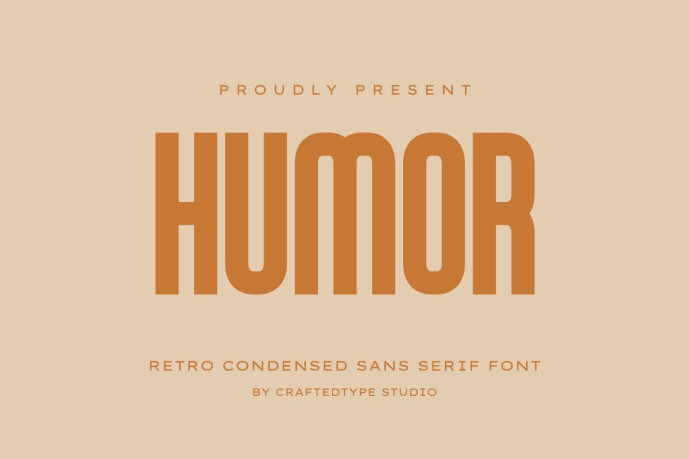
Designer: CraftedType Studio
Humor is a sleek and stylish retro condensed sans serif font designed for creators who value clean aesthetics and strong visual impact. With its tall, narrow letterforms and elegant spacing, this font is perfect for Print On Demand projects like t-shirts, posters, mugs, and tote bags, as well as for film titles, branding, logos, and modern packaging.
Its versatile style fits both professional and playful designs, making it ideal for crafting projects, minimalist branding, or cinematic visuals. Comes in OTF and TTF formats and fully PUA encoded